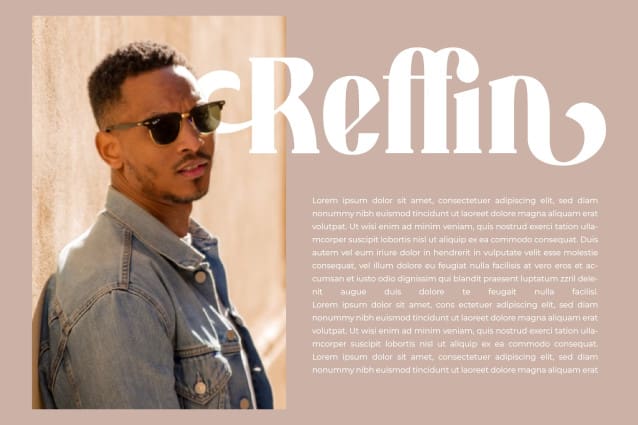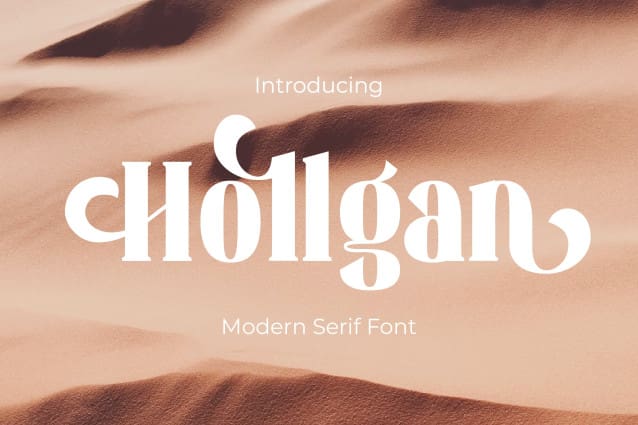
Hollgan Font
Hollgan Font is a serif display font designed to embody elegance and contemporary appeal. With its refined lines and striking curves, this font is perfect for elevating design projects that demand sophistication and style.